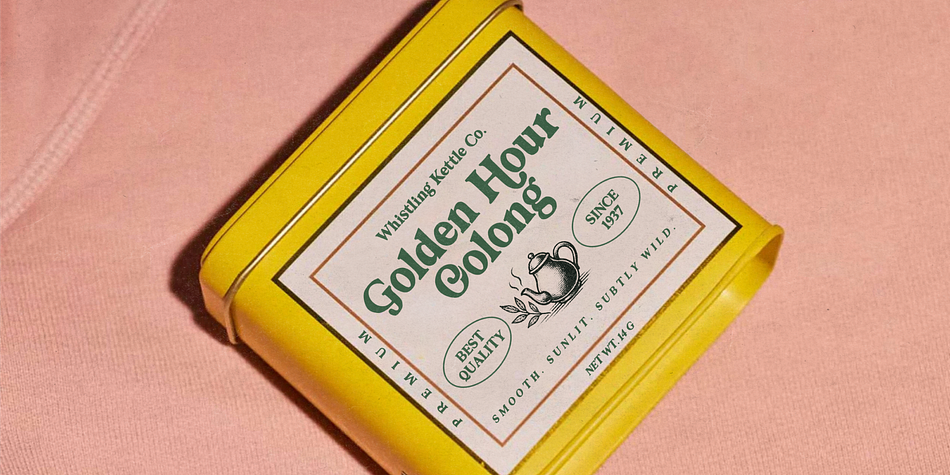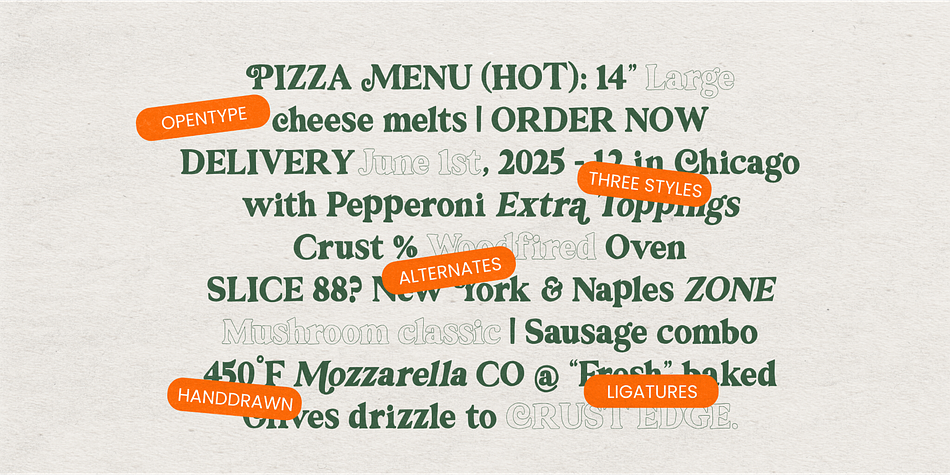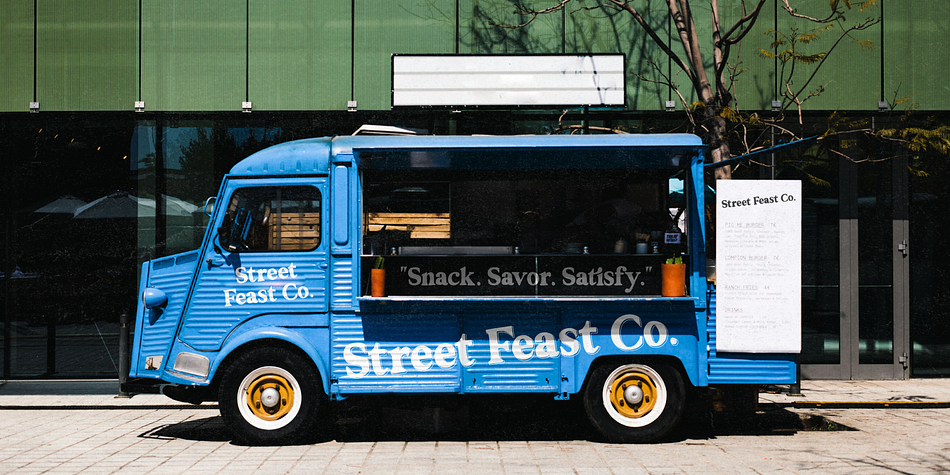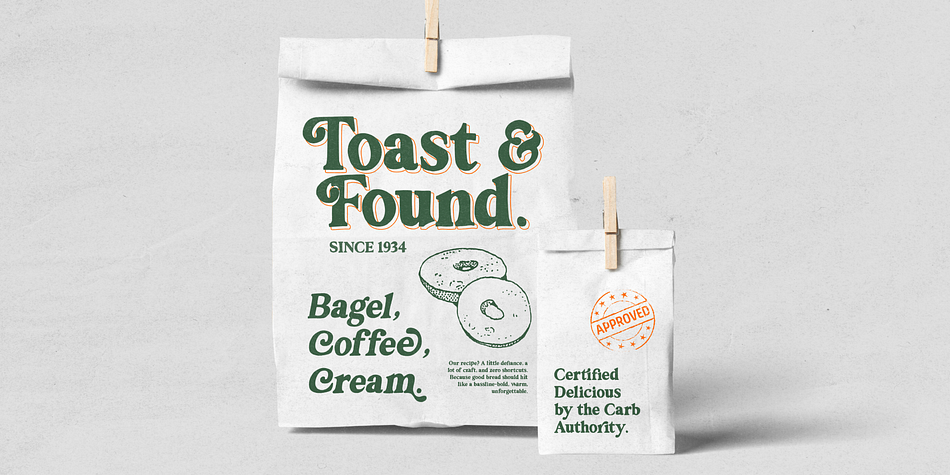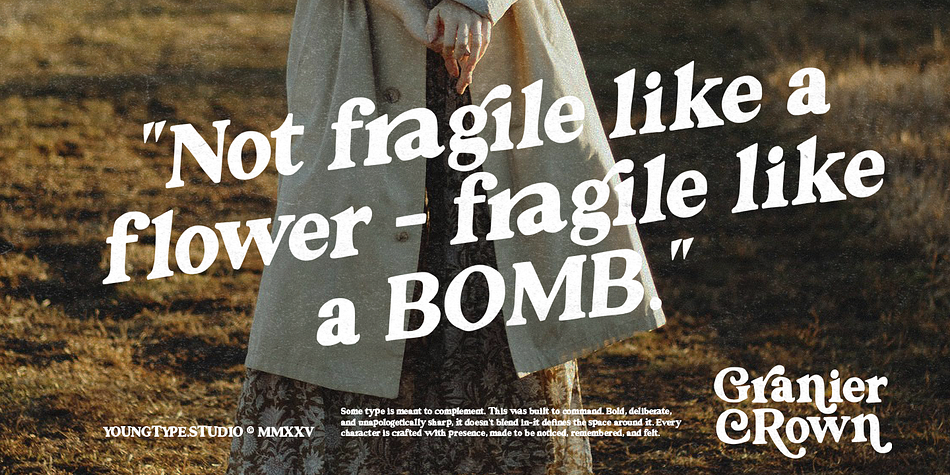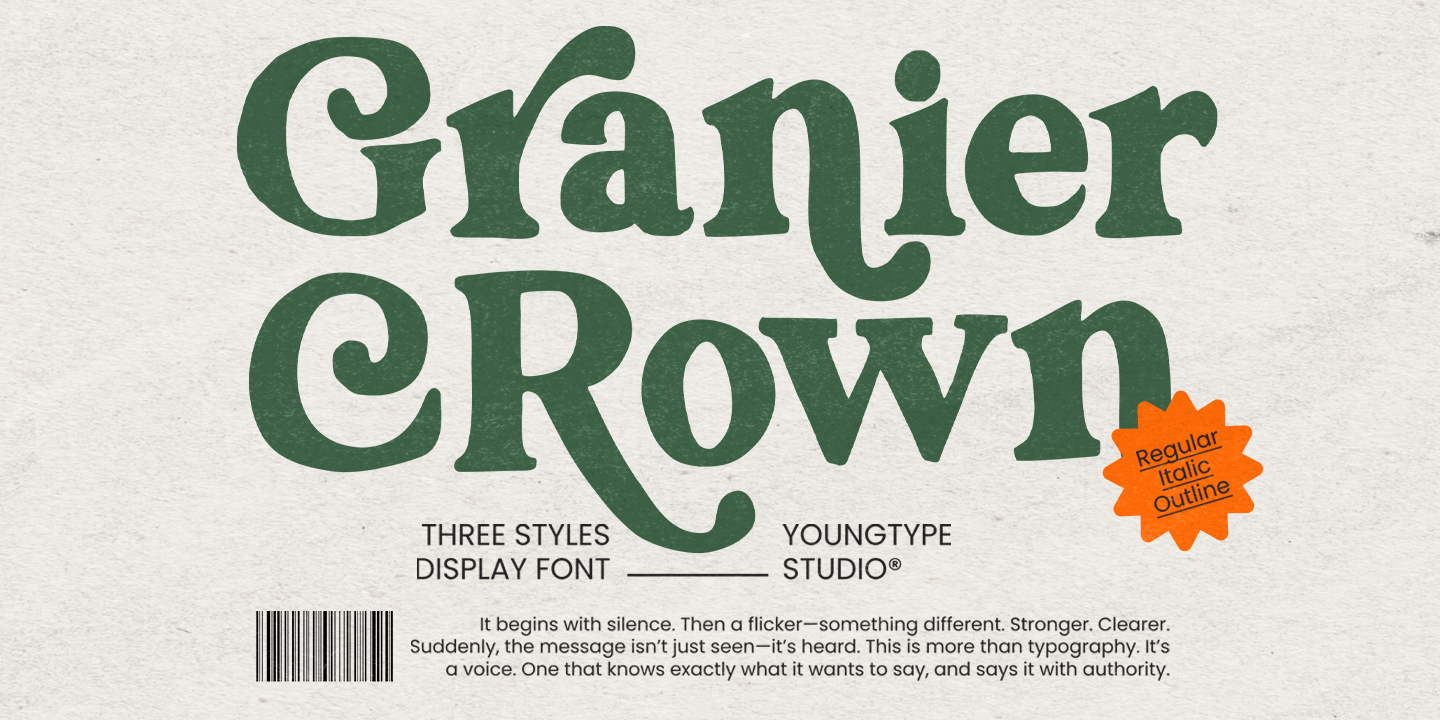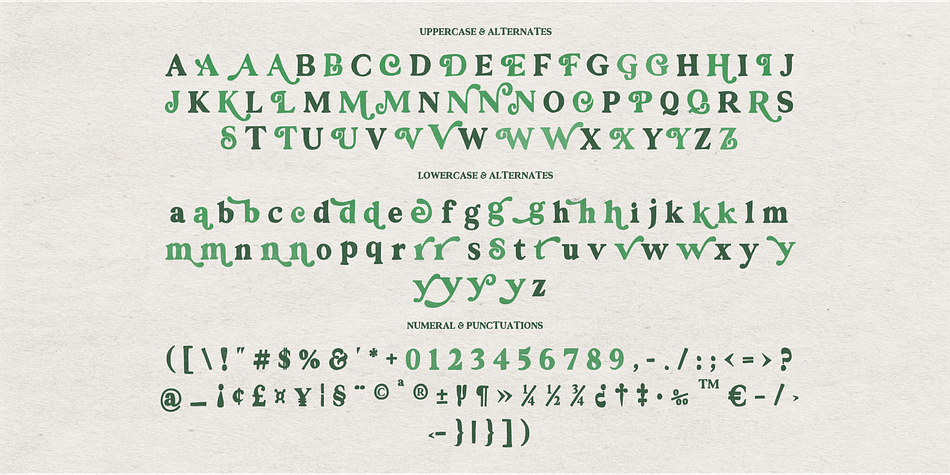
Granier Crown
Granier Crown is a serif font family. This typeface has three styles and was published by Youngtype Studio.
Granier Crown is a hand brush font made with brush and ink which is equipped with 3 models Regular, Italic, Outline. This typeface is ideal for use in bold watercolor designs or handwritten styles, such as blog titles, posters, wedding elements, t-shirts, clothing, book covers, business cards, greeting cards, branding, merchandise, etc.
Contains full set :
Uppercase
Lowercase
Ligatures
Alternates
Punctuation
number
multilingual support.